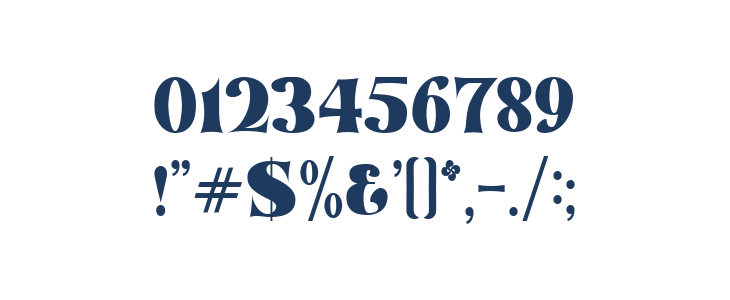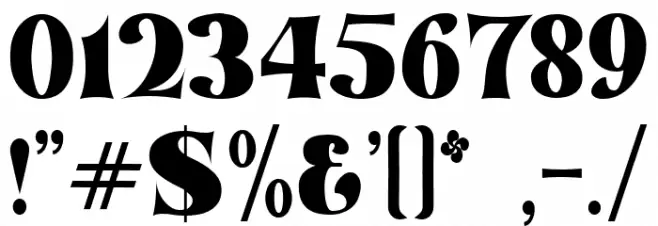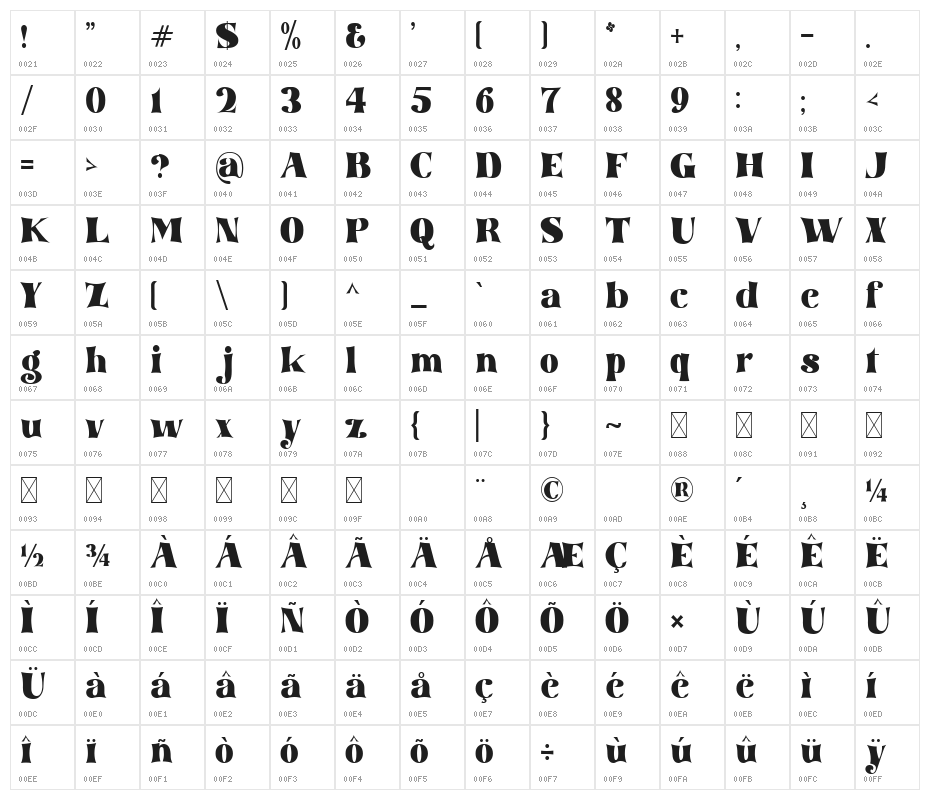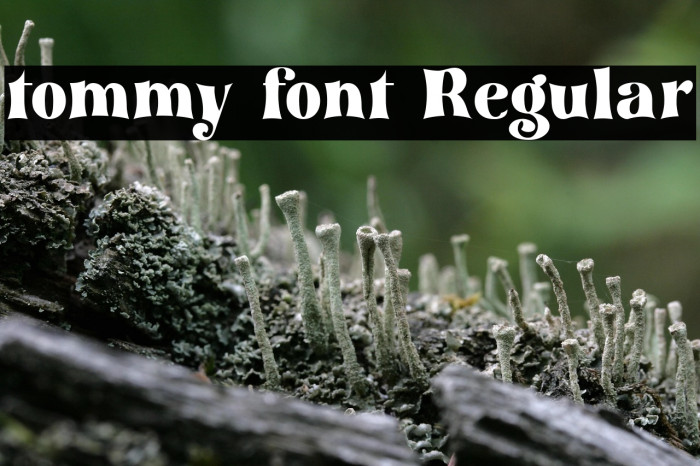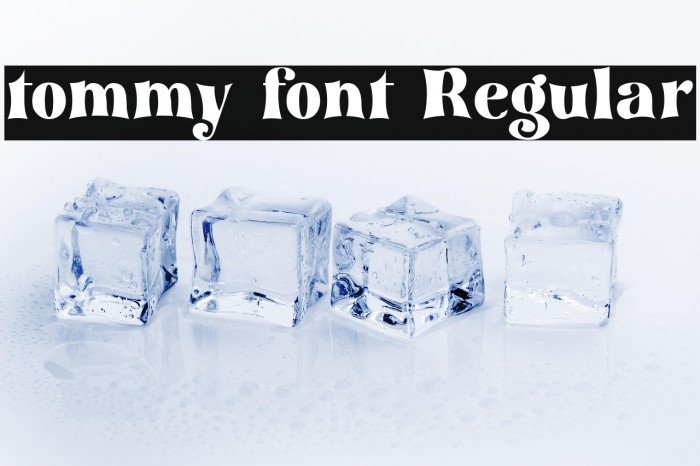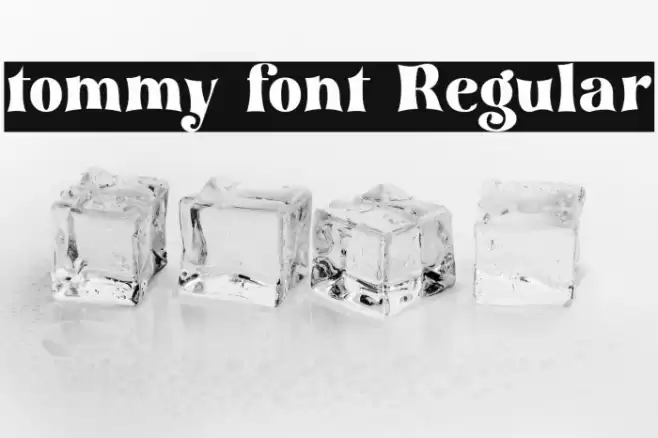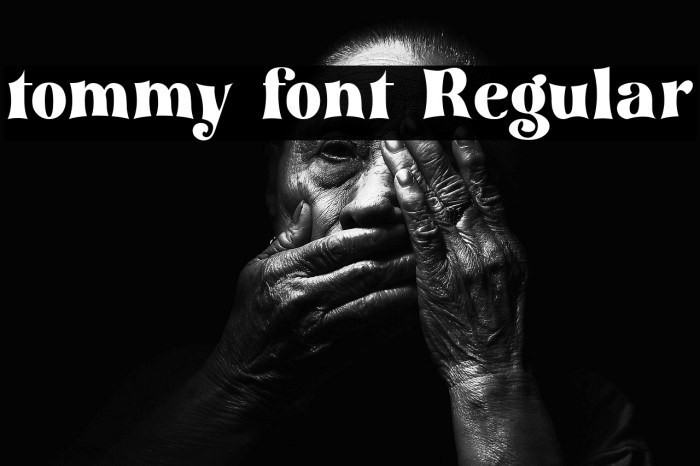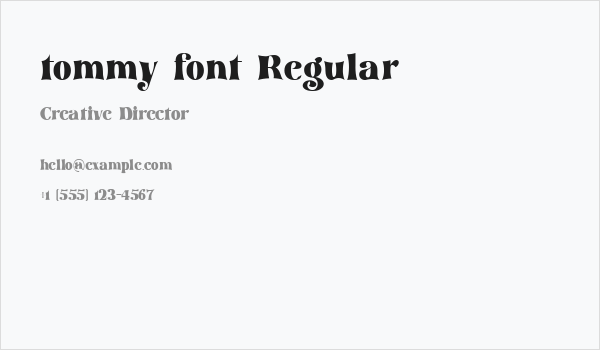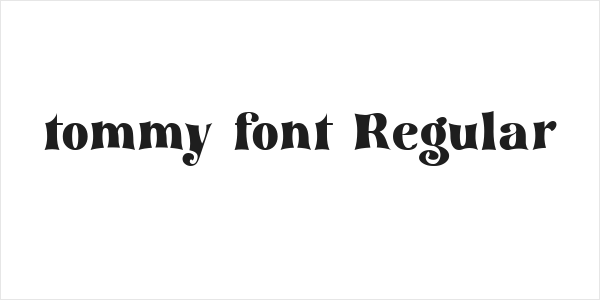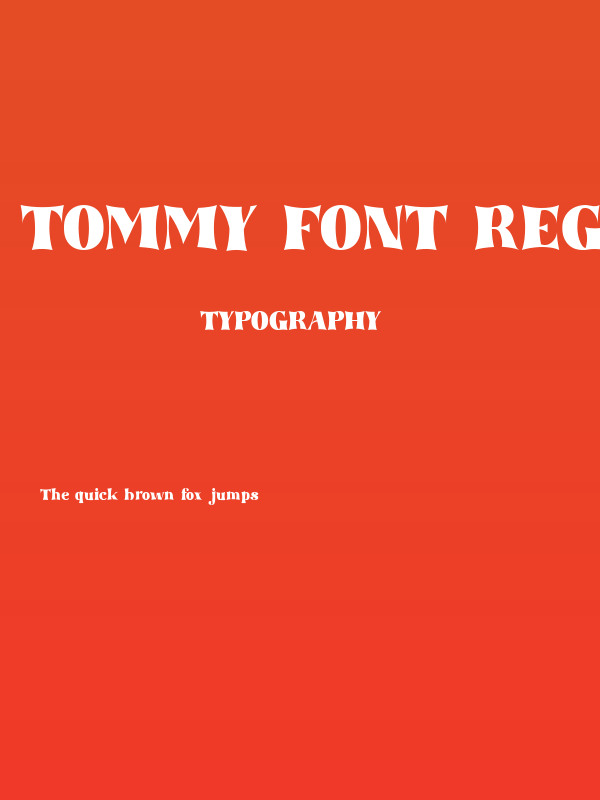
tommy font Regular Font
tommy font Regular Description
This font features a bold and dynamic style with a strong presence. The characters exhibit a unique blend of sharp angles and smooth curves, creating a striking visual impact. The uppercase letters are particularly bold, with a slight flare at the ends, adding a touch of elegance. The lowercase letters maintain a consistent weight, with some characters like 'g' and 'y' showcasing distinctive loops. The numerals are robust and well-balanced, ensuring readability. Special characters are designed with the same boldness, making them stand out effectively.
| Proposed Projects | Ideal for branding, poster design, headlines, and any project requiring a strong visual impact. |